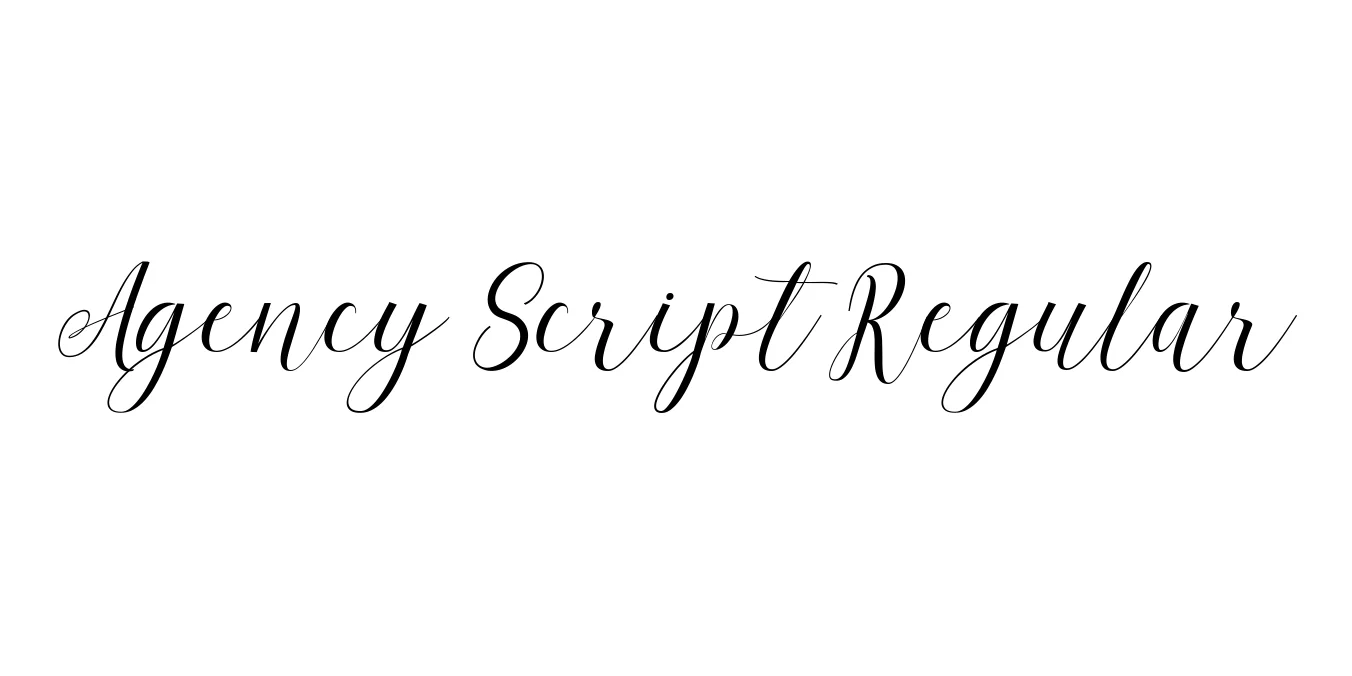
Agency Script Regular
Designed by Morris Fuller Benton
Agency Script Regular was originally designed by the prolific American typeface designer Morris Fuller Benton in 1932 for the American Type Founders (ATF). This typeface was created during a period when casual, hand-lettered styles were gaining popularity in advertising and commercial art, offering a sophisticated yet informal aesthetic that captured the spirit of mid-century sign painting.
The design features flowing, connected strokes and a distinct rhythmic quality that makes it ideal for vintage-inspired layouts and elegant invitations. Over the decades, Agency Script has been digitized by various foundries, maintaining its status as a classic choice for designers looking to evoke a nostalgic Americana feel or a personal, hand-crafted touch in their typography.
Agency Script Regular Best Uses
Perfect for wedding invites and formal event cards that require a touch of class.
Excellent for logo marks that need a personal, hand-signed look.
Ideal for vintage-style posters and 1950s themed marketing materials.
Adds a sophisticated and rhythmic touch to quote graphics and lifestyle imagery.